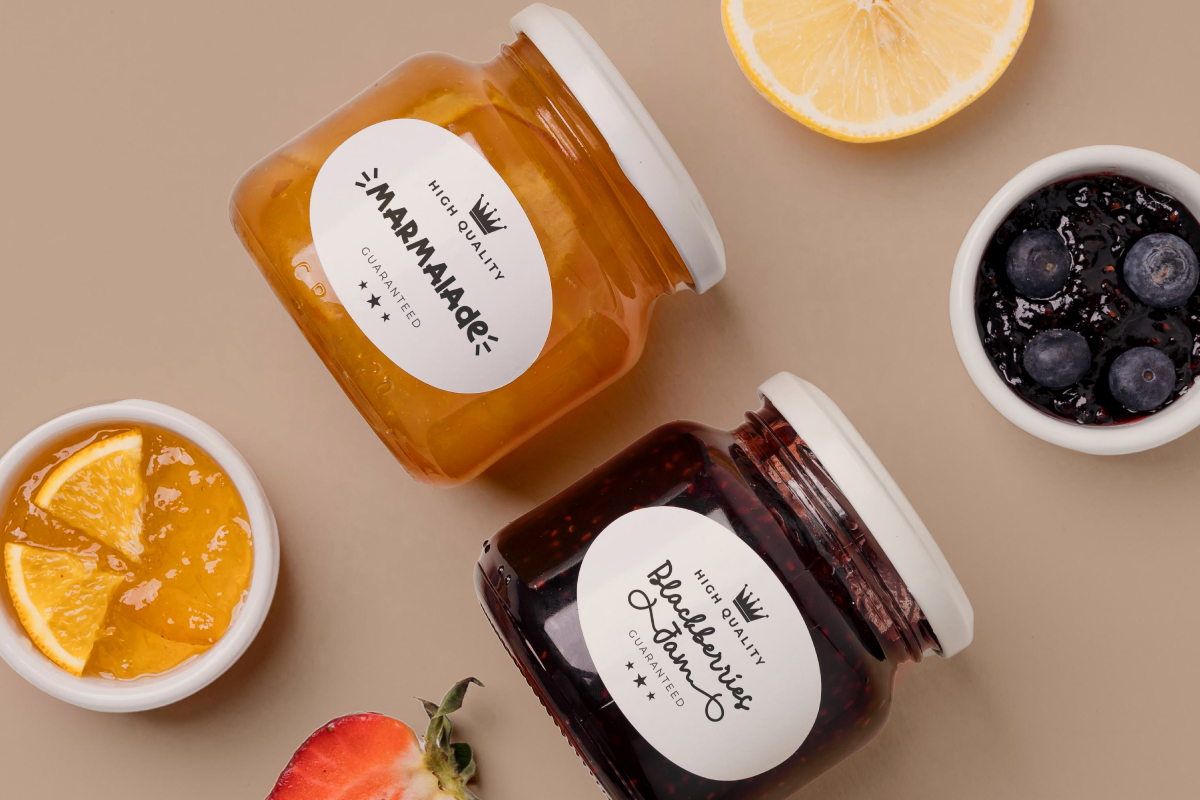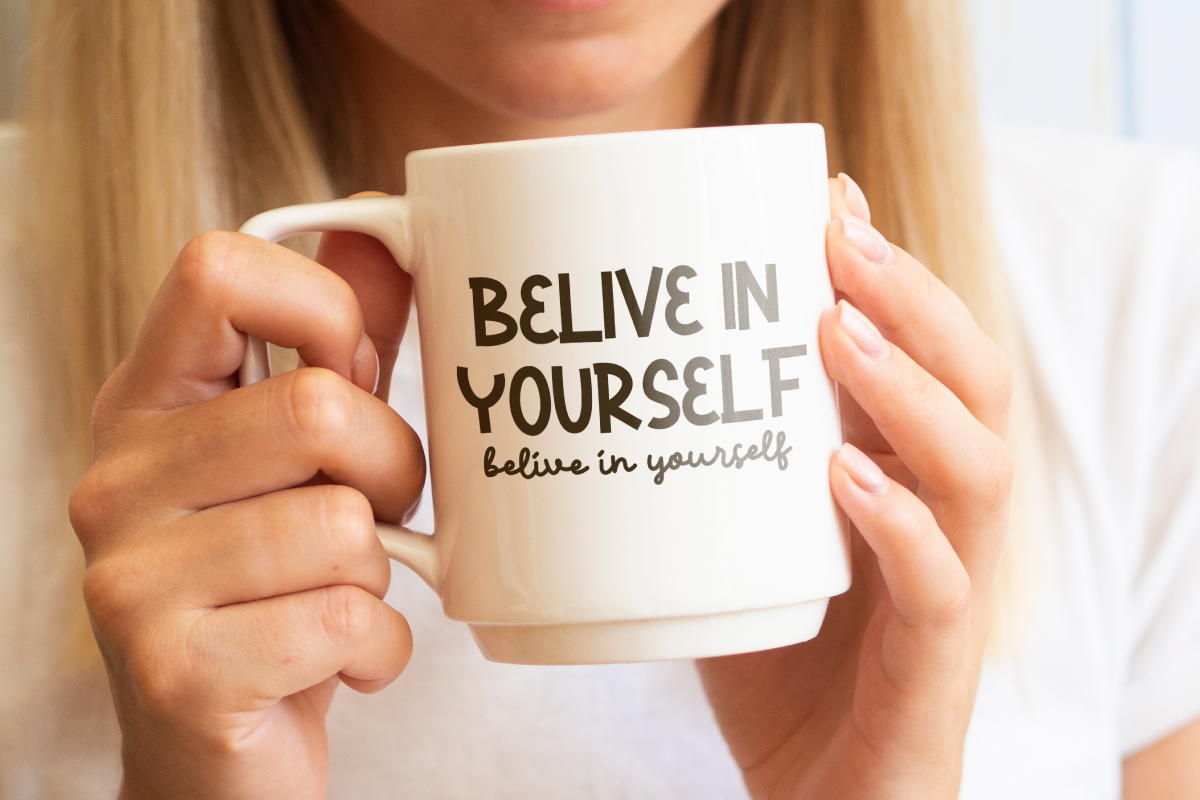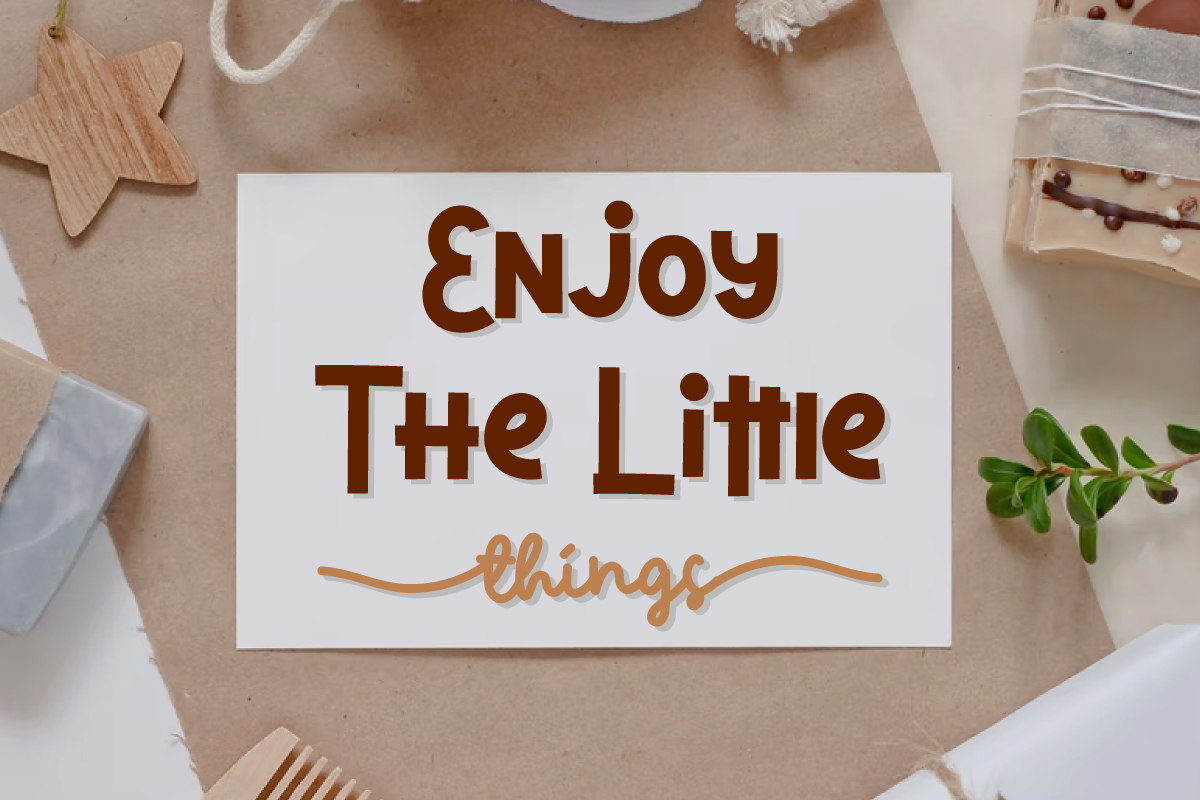
Choco Mellow Font Duo
This is a playful font duo with modern display look design styles, available on script and Display Handwritten typeface. These two lovely fonts would be perfect to combine in your design. It would be perfect for : crafting, business cards, branding materials, quotes, ingredient, product, and many more. Choco Mellow Font This font includes full set of Uppercase and Lowercase Basic Character. Numerals and Punctuation. Also it contains ligatures to make it flowless characters to perfectly make awesome handwriting look that add more beautifulness to perfect your extraordinary projects!